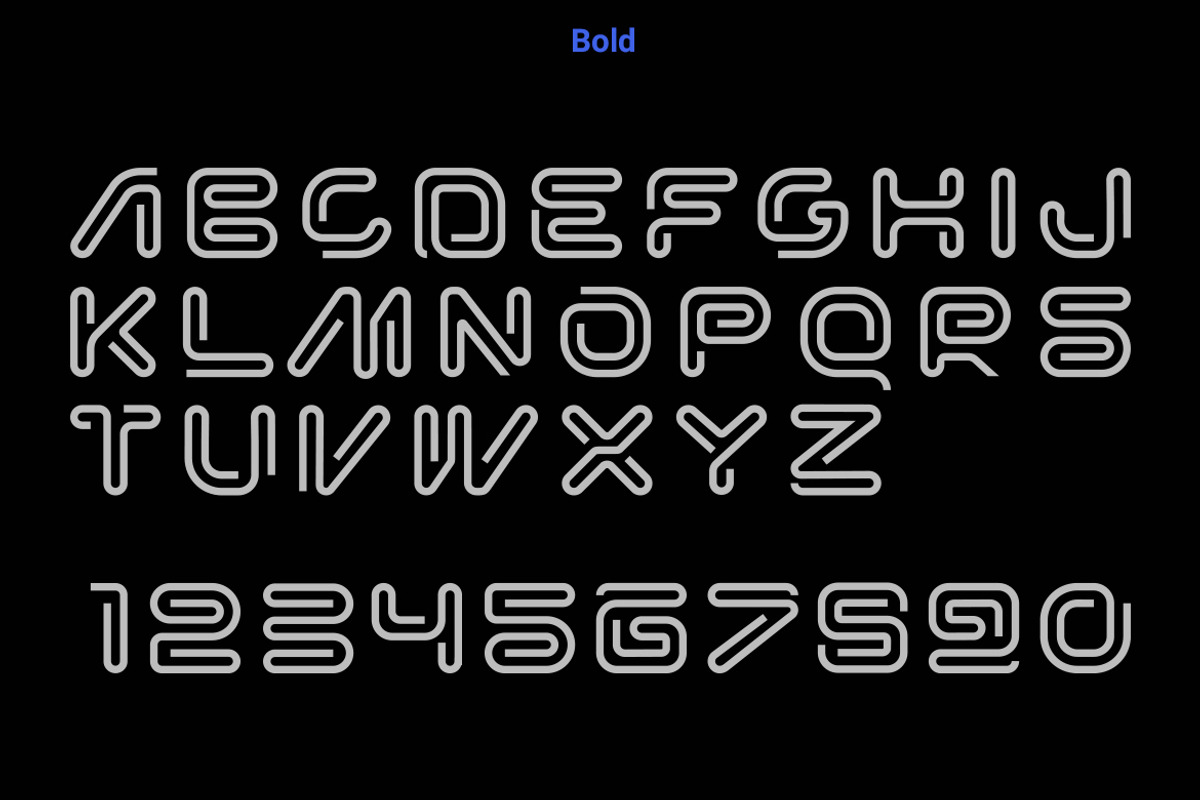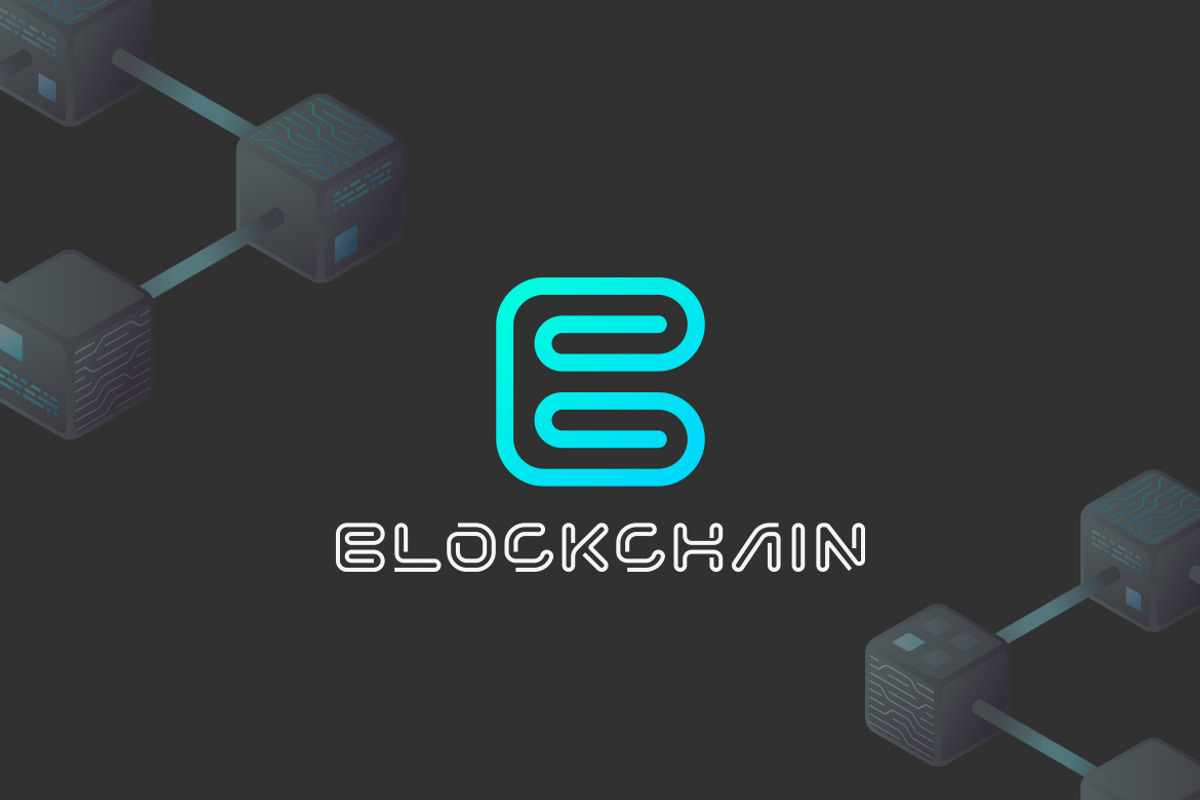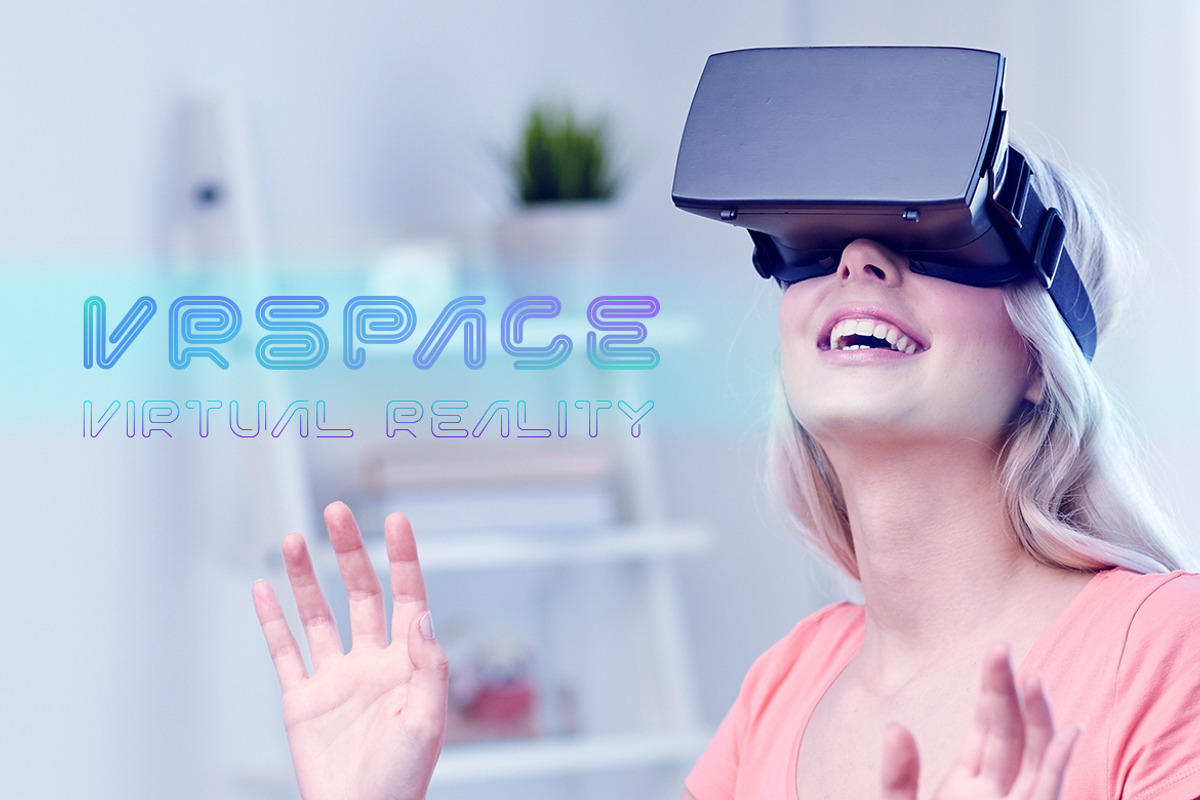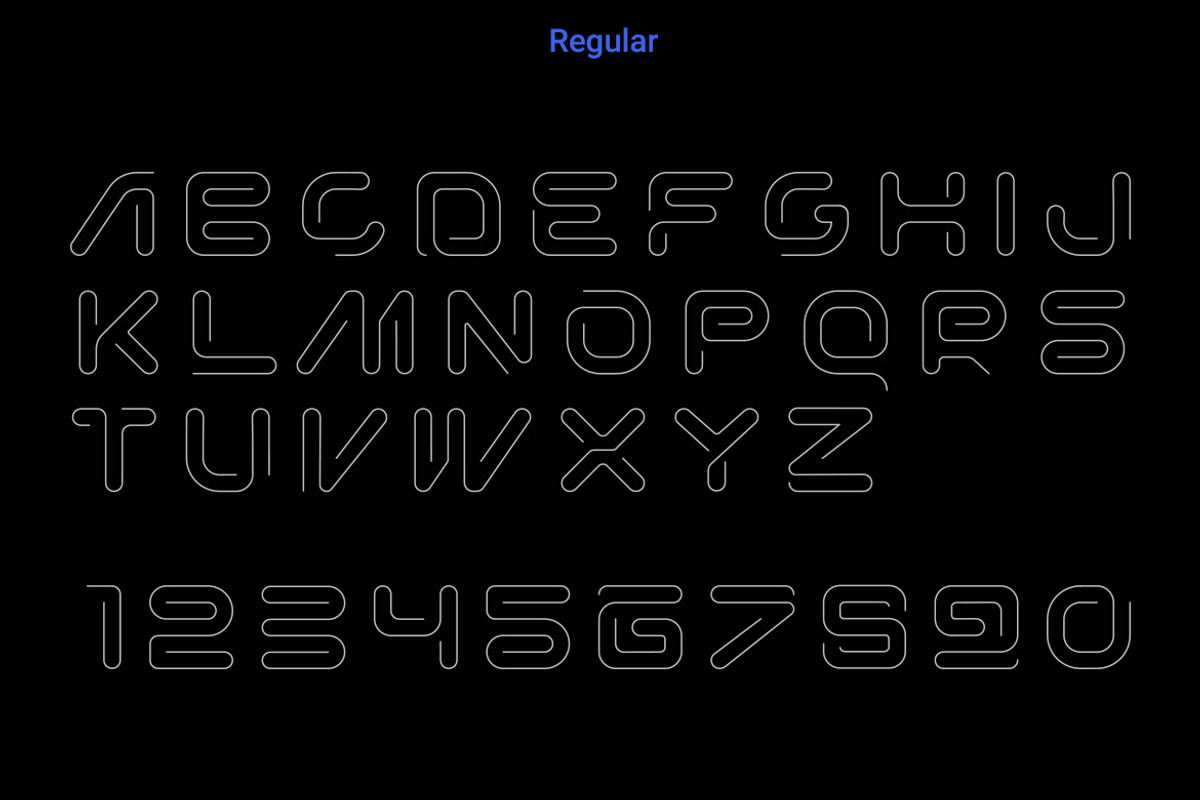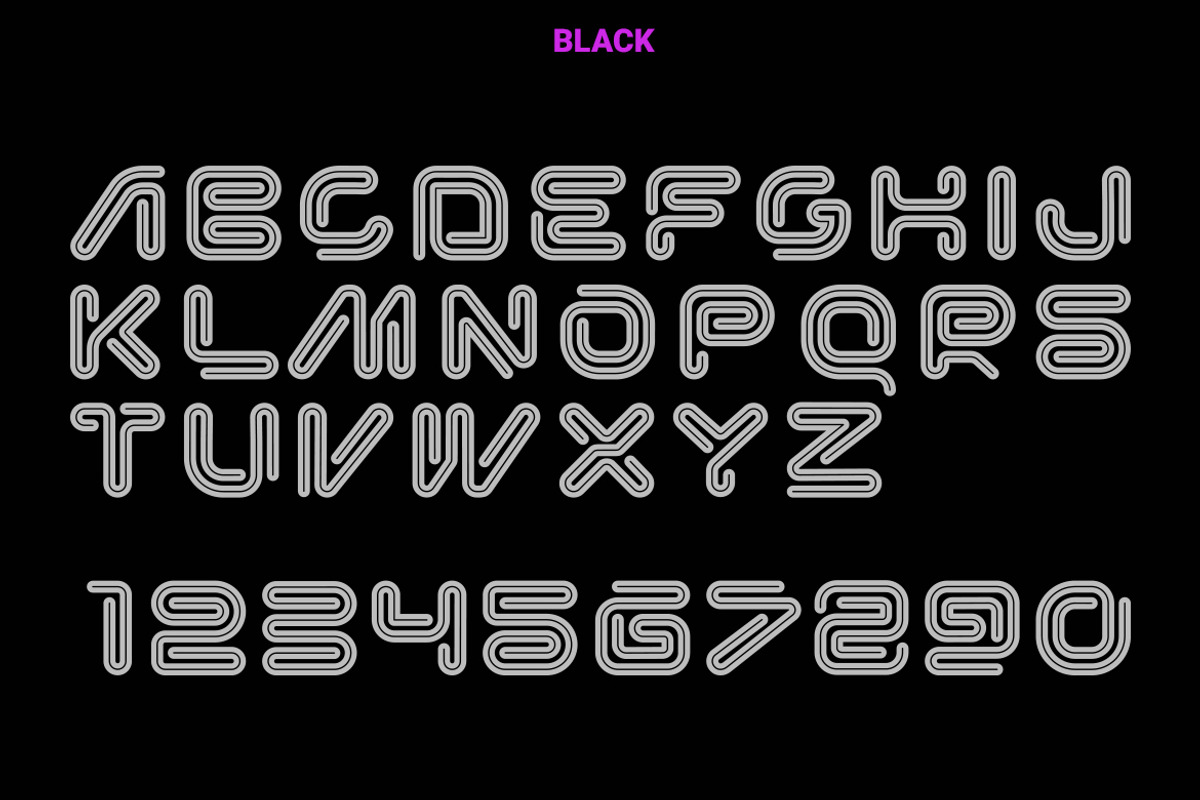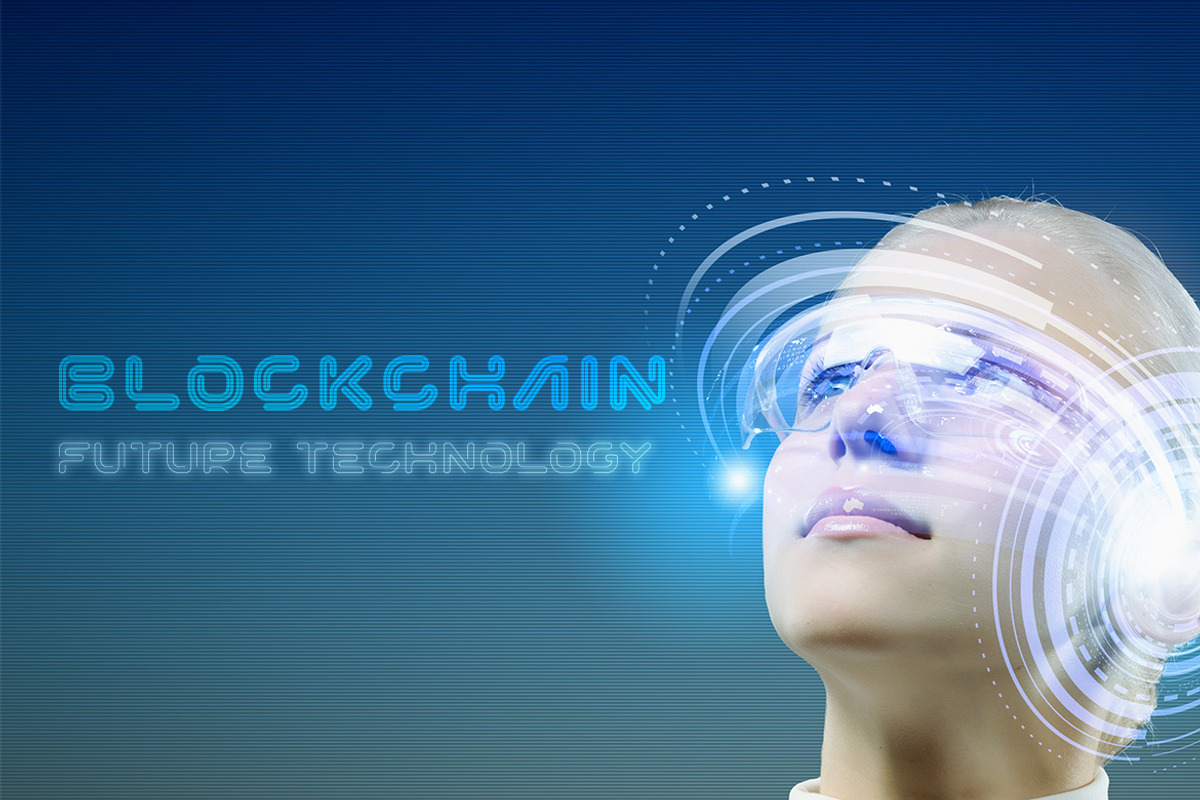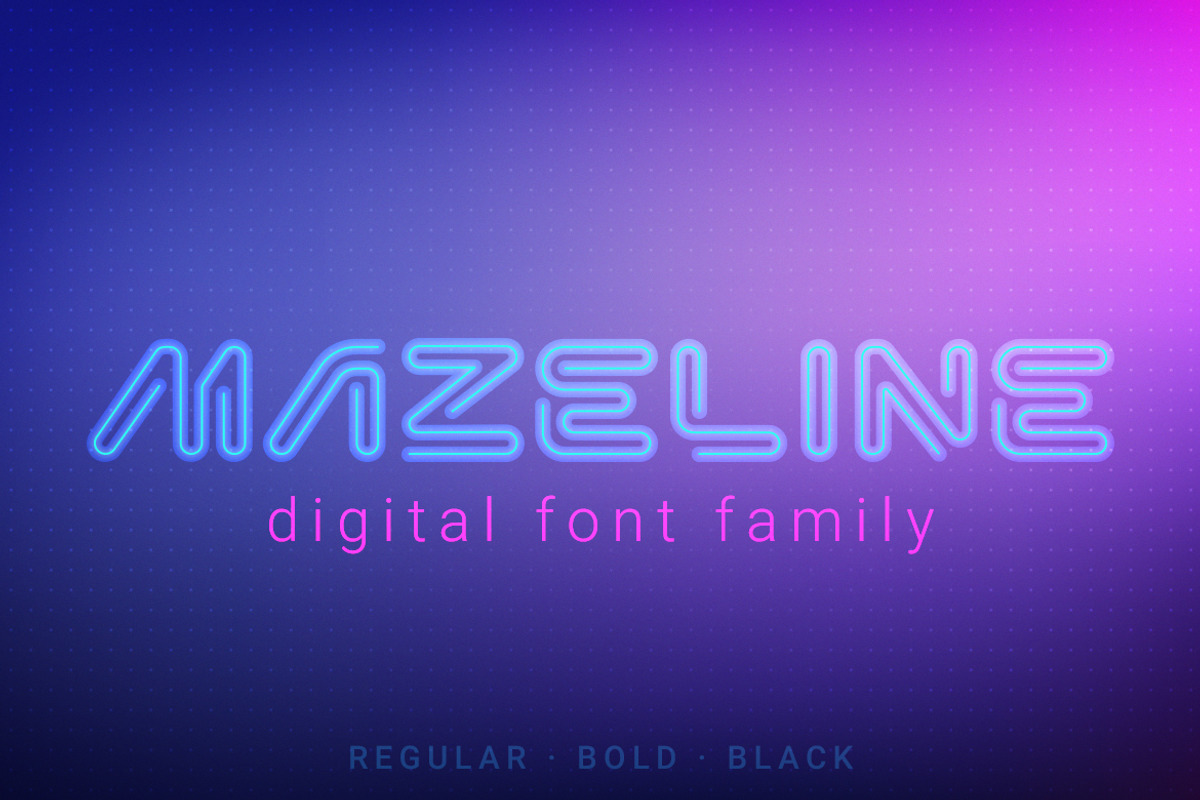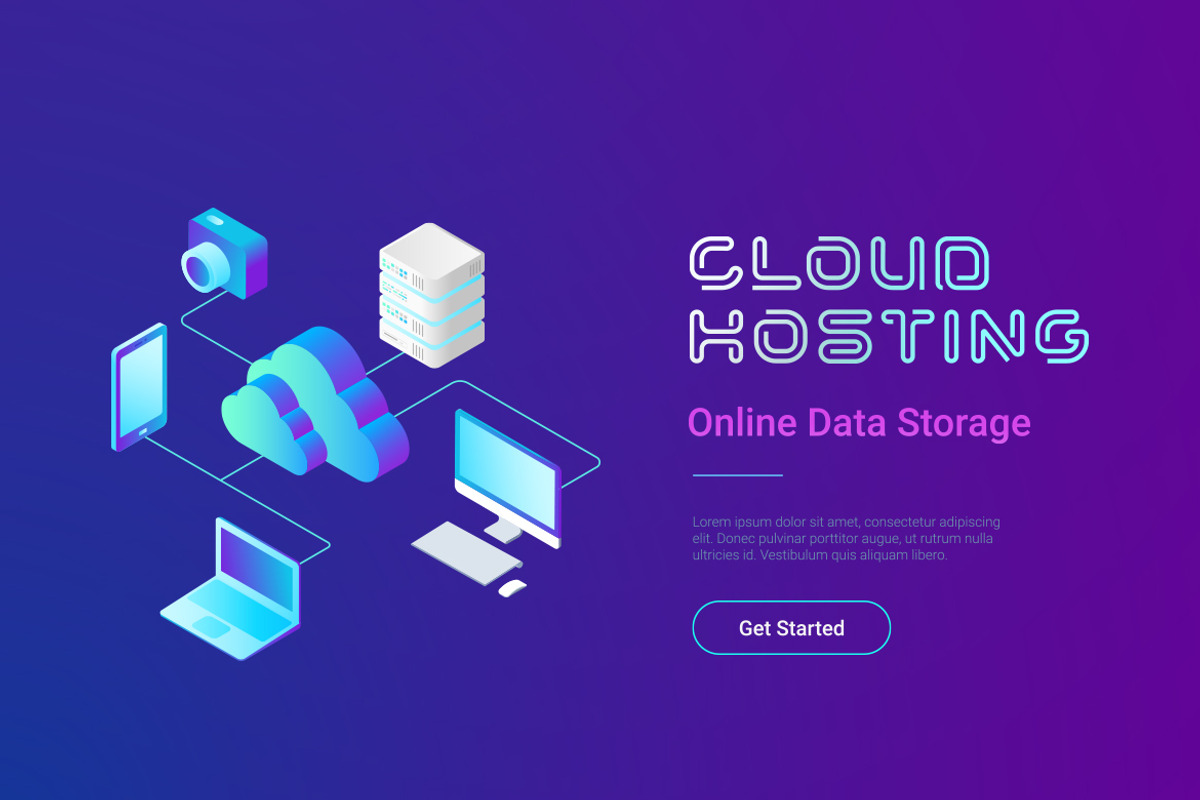
MazeLine Font
MazeLine font helping to create futuristic hi-tech atmosphere and style. It is good looking as header and as text both. Many Letters could be used as Logos as well. Use it in your projects in such areas as robots&androids, hi-tech, future, virtual reality, space and many others.
It consists of three types:
MazeLine Font by Sentavio fits naturally into Branding, posters, packaging, typography.